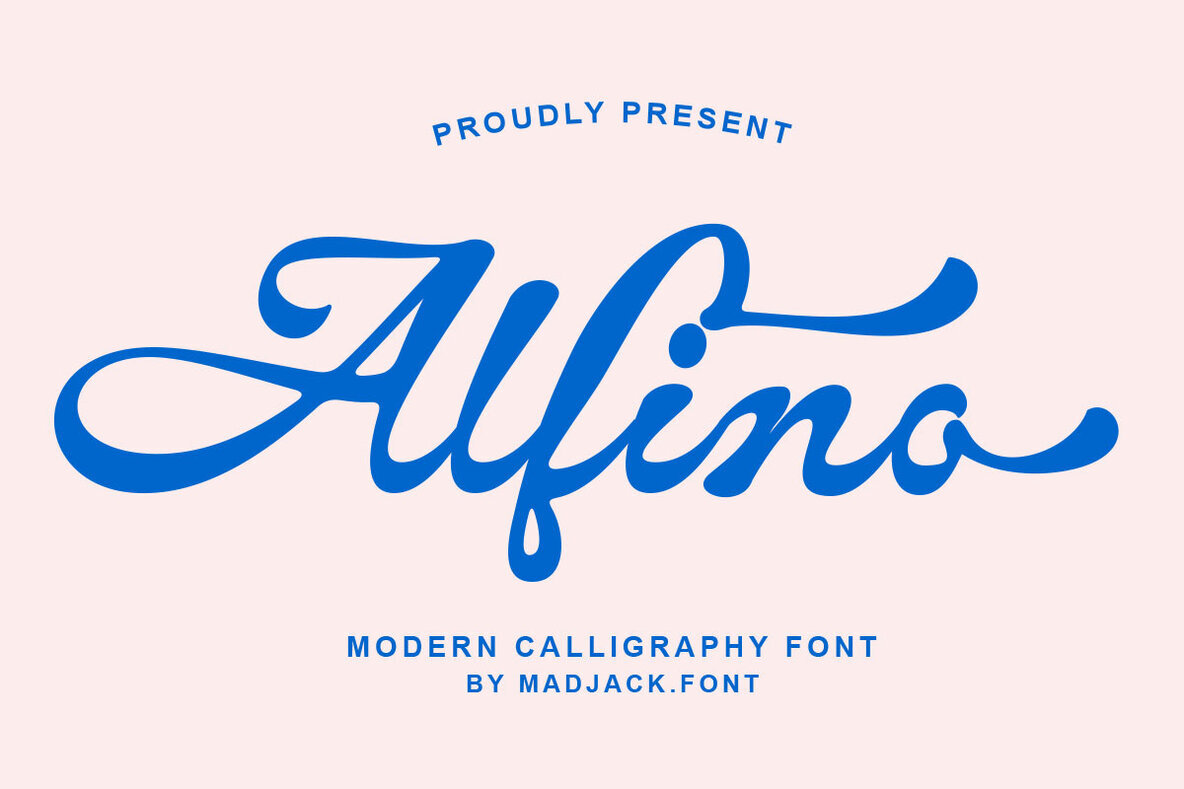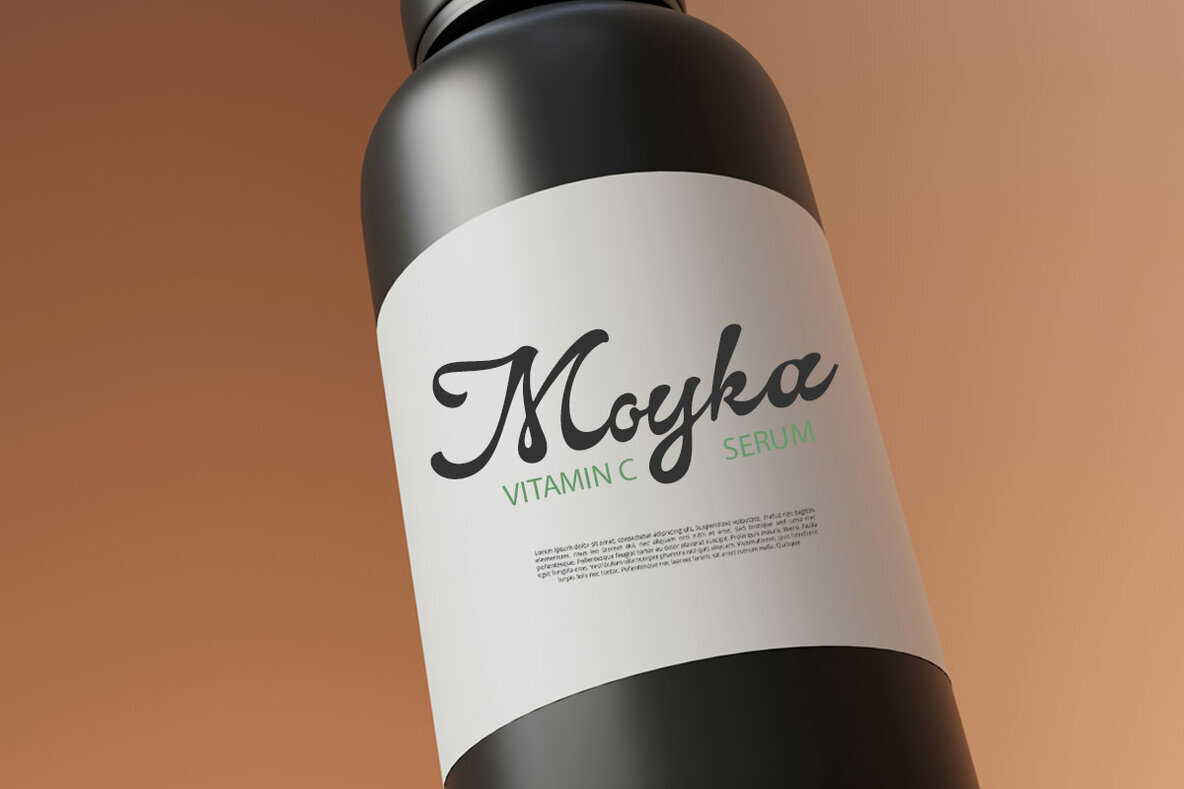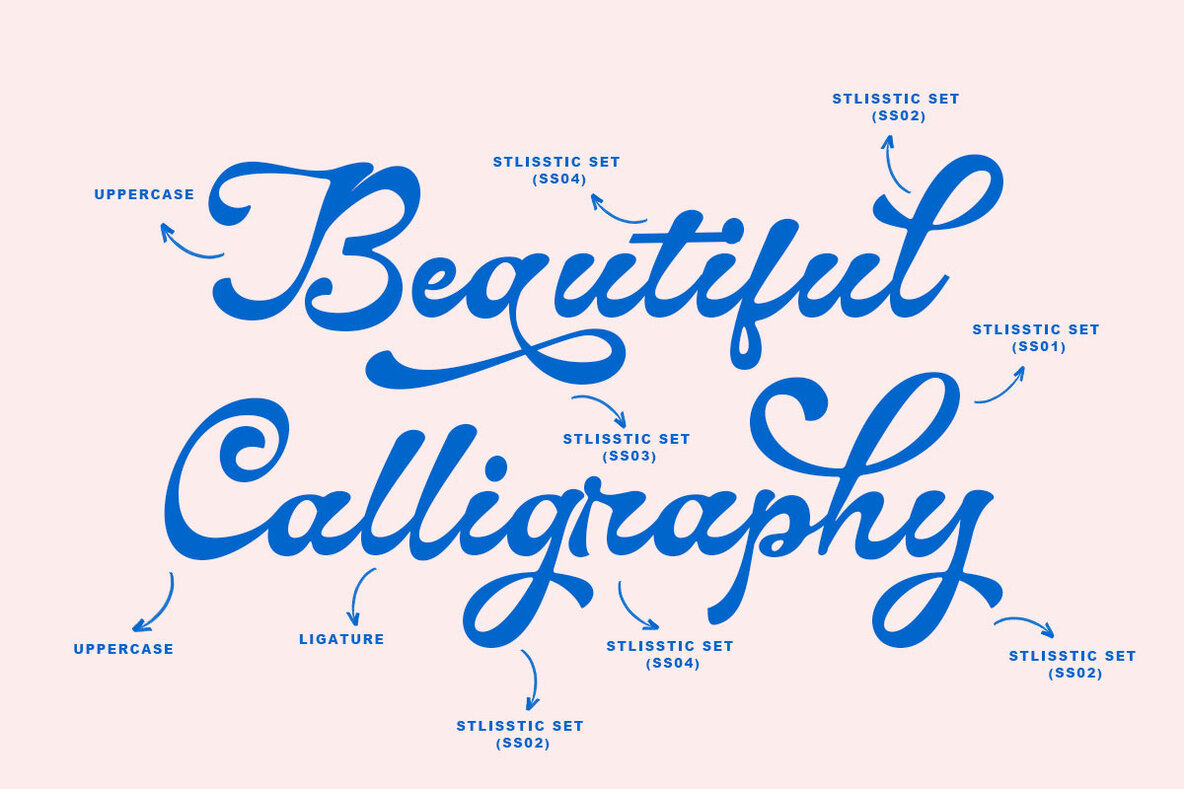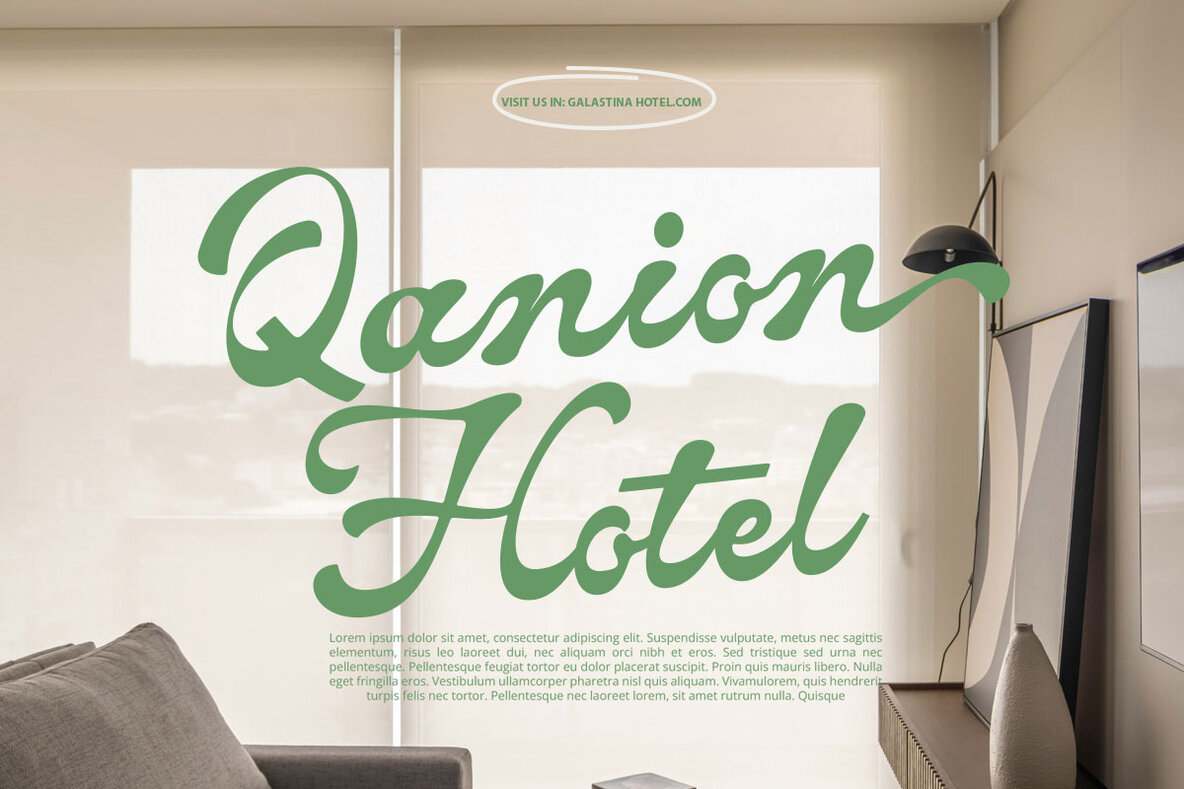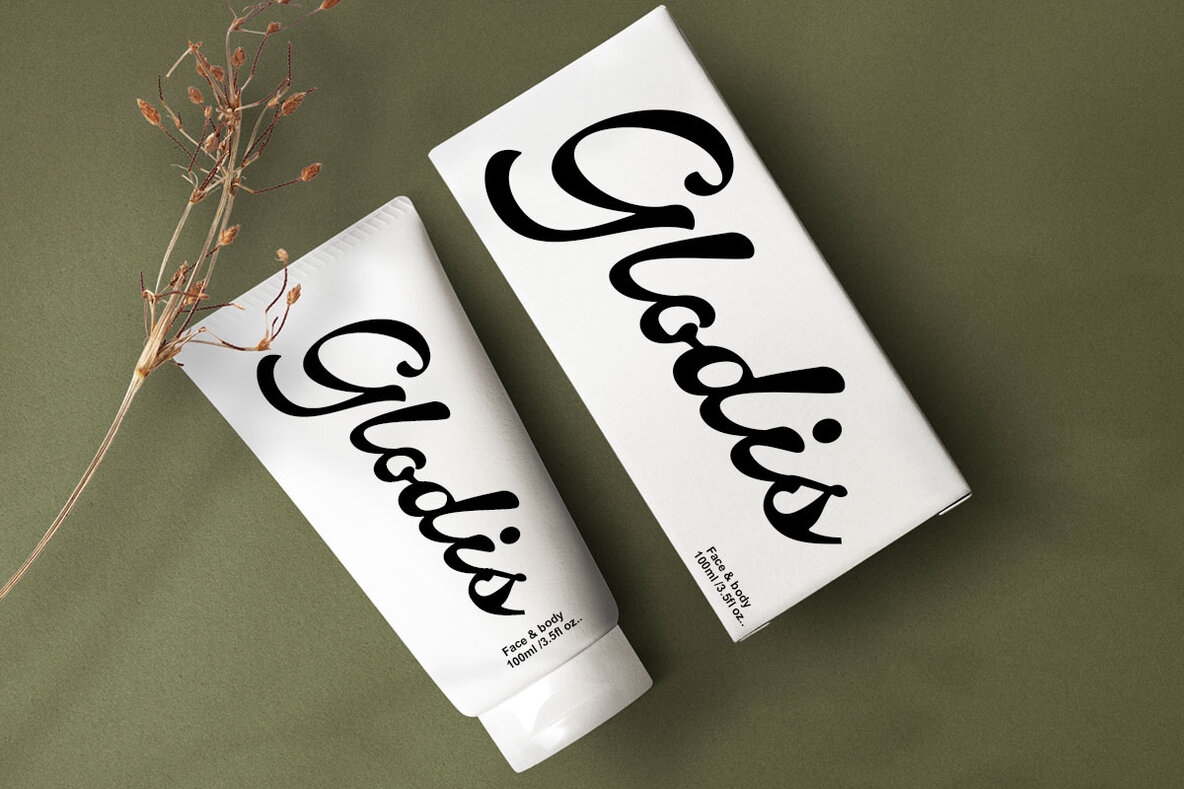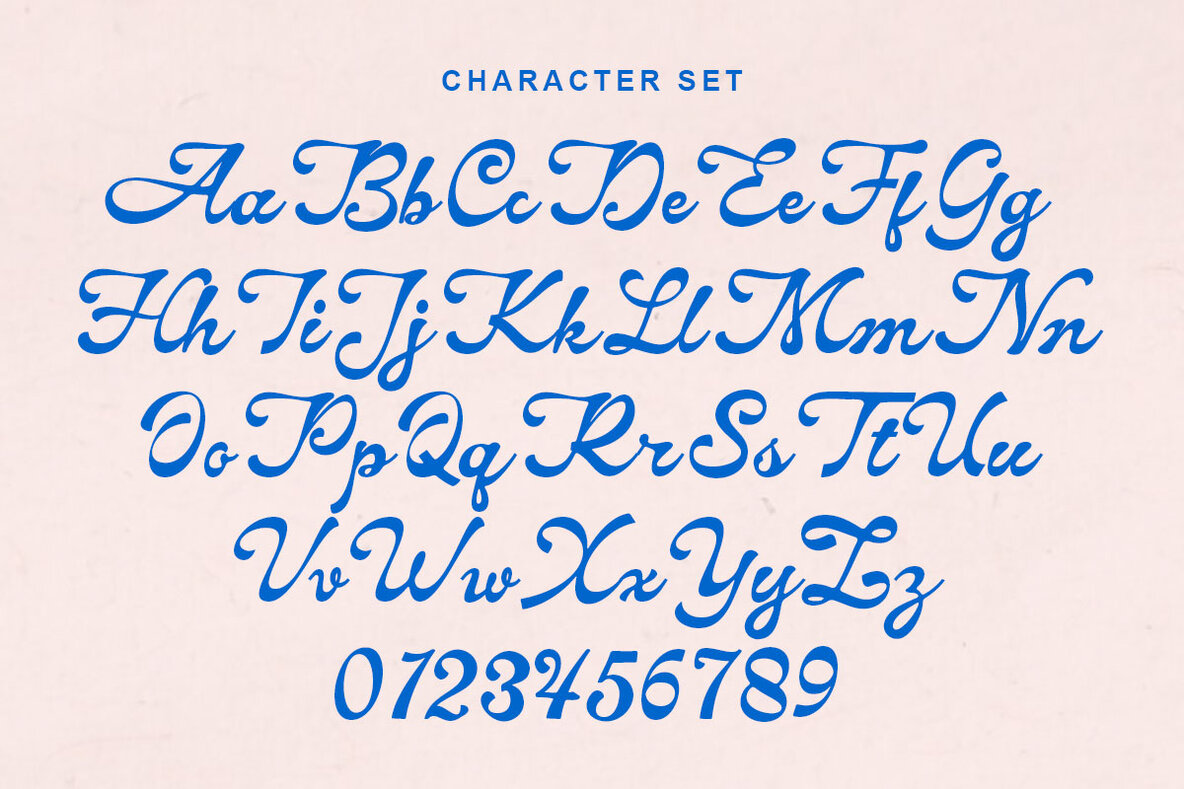
Alfino Script Font
Alfino Script Regular
Alfino Script brings a lively aesthetic to the world of typography. This bold typeface, characterized by its rounded scripts, embraces a sense of fun alongside a contemporary edge. Its versatility makes it an excellent choice for a wide range of applications, from branding and logo design to event stationery and social media postings. Whether you're crafting invitations, developing product packaging, or designing advertisements, Alfino Script infuses creativity into every project. The typeface is particularly suited for projects seeking a trendy and visually appealing presence.Alfino Script: Bold Typeface with Rounded Charisma